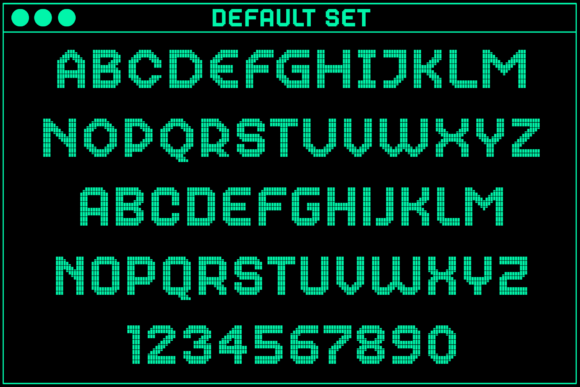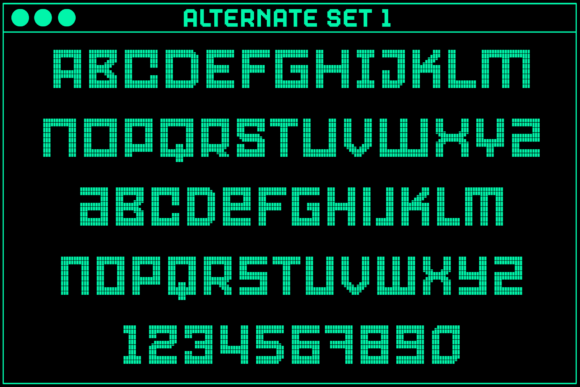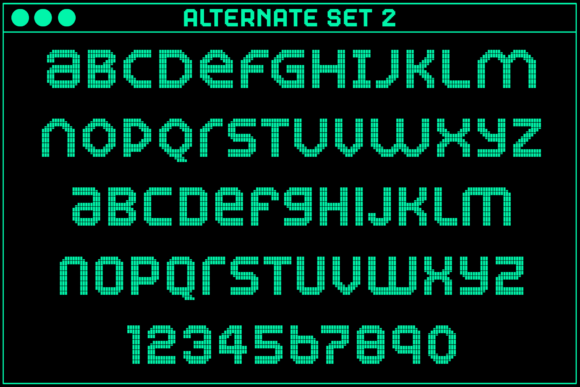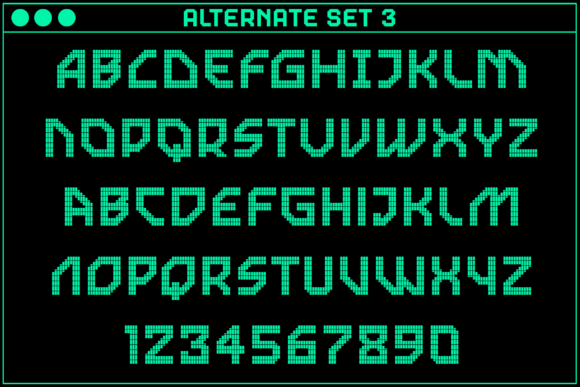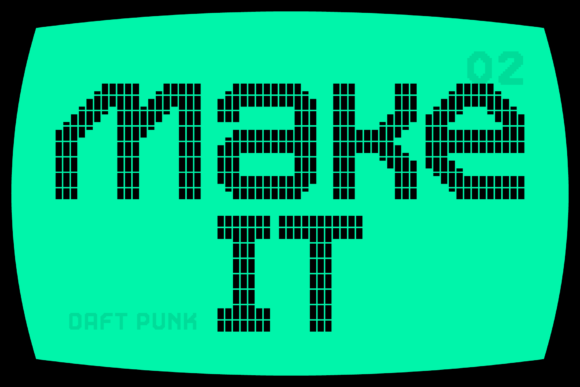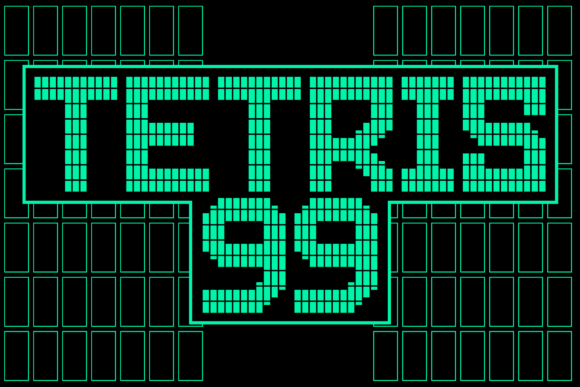
Introducing Grid Font: The Ultimate Pixelated Display Font for Designers and Crafters
Are you tired of using the same old fonts in your designs? Do you want to add a unique and trendy touch to your projects? Look no further than Grid Font, a cool and uniquely shaped pixelated display font that’s perfect for designers and crafters. With its distorted and pixelated style, Grid Font is sure to make your designs stand out from the crowd.
What is Grid Font?
Grid Font is a specially designed pixelated display font that’s perfect for adding a touch of nostalgia and retro flair to your designs. Its unique and distorted shape makes it perfect for creating eye-catching headlines, titles, and graphics. Whether you’re working on a logo, a poster, or a digital project, Grid Font is sure to add a cool and trendy touch.
Key Features of Grid Font
- Uniquely shaped pixelated design: Grid Font features a one-of-a-kind pixelated design that’s sure to grab attention.
- Distorted and trendy style: The font’s distorted style gives it a trendy and edgy look that’s perfect for modern designs.
Benefits of Using Grid Font
So why should you choose Grid Font for your designs? Here are just a few benefits of using this amazing pixelated display font:
- Adds a unique touch to your designs: Grid Font’s unique and distorted style makes it perfect for adding a touch of personality to your designs.
- Perfect for headlines and titles: The font’s bold and eye-catching style makes it perfect for creating attention-grabbing headlines and titles.
- Great for logos and branding: Grid Font’s unique style makes it perfect for creating memorable and eye-catching logos and branding materials.
Who Can Use Grid Font?
Grid Font is perfect for a wide range of designers and crafters, including:
- Graphic designers: Grid Font is perfect for graphic designers who want to add a unique touch to their designs.
- Logos and branding specialists: The font’s bold and eye-catching style makes it perfect for creating memorable logos and branding materials.
- Digital artists: Grid Font’s distorted and trendy style makes it perfect for digital artists who want to add a touch of nostalgia and retro flair to their work.
- Crafters and scrapbookers: Grid Font is also perfect for crafters and scrapbookers who want to add a unique touch to their projects.
Tips for Using Grid Font
Here are a few tips for getting the most out of Grid Font:
- Experiment with different sizes and colors: Grid Font looks great in a variety of sizes and colors, so don’t be afraid to experiment and find the perfect combination for your design.
- Use it sparingly: Grid Font’s bold and eye-catching style makes it perfect for headlines and titles, but use it sparingly to avoid overwhelming your design.
- Pair it with other fonts: Grid Font looks great when paired with other fonts, so try experimenting with different font combinations to find the perfect look for your design.
Grid Font is a unique and trendy pixelated display font that’s perfect for designers and crafters who want to add a touch of personality to their designs. With its distorted and pixelated style, PUA encoding, and easy-to-use glyphs and swashes, Grid Font is the perfect choice for anyone looking to create eye-catching headlines, titles, and graphics. So why wait? Download Grid Font today and start adding a cool and trendy touch to your designs!